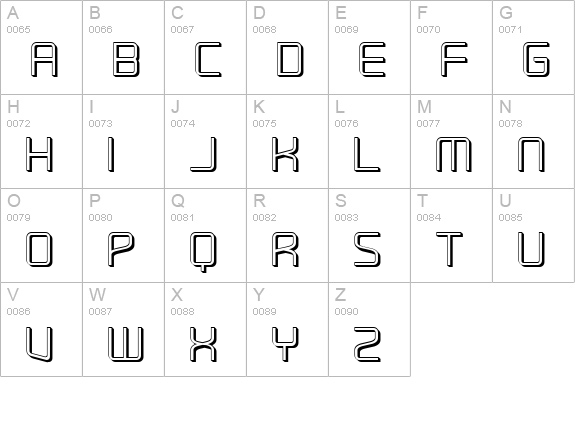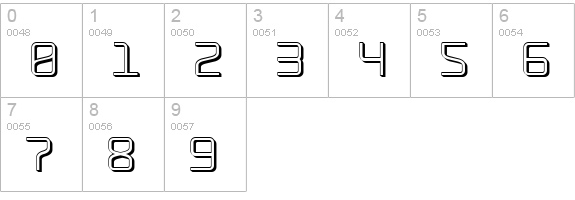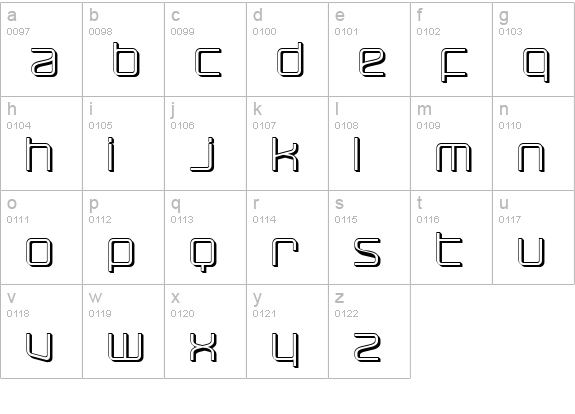
RaveParty Offset font is a bold and energetic typeface that exudes a vibrant and dynamic vibe, perfect for capturing the excitement of a rave party. With its unique offset design, this font adds a modern twist to any project, making it stand out and grab attention. The striking and playful nature of RaveParty Offset font makes it ideal for posters, flyers, album covers, and any other design that aims to make a statement. Its versatility allows for both headline and body text use, adding a touch of fun and creativity to any project. Best of all, RaveParty Offset font is free to download at FontsMarket.com, making it accessible to all designers looking to add a touch of excitement to their work. Don't miss out on this bold and lively font that will take your designs to the next level!